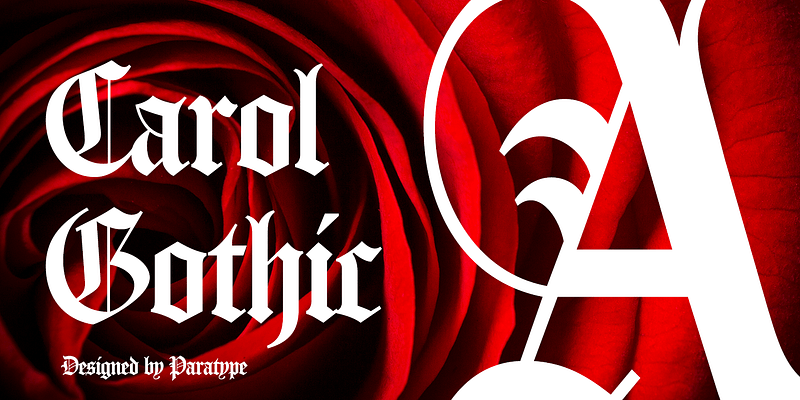
Carol Gothic Font Free Download is a beautifully crafted blackletter typeface that brings a sense of tradition, elegance, and drama to your design projects. With its sharp angles, ornate letterforms, and historical flair, this font is perfect for vintage-inspired branding, certificates, event invitations, religious texts, and fantasy-themed graphics.
The design of Carol Gothic is rooted in old-world calligraphy, yet it maintains a clean and consistent structure that makes it highly readable compared to other gothic fonts. It includes a full set of uppercase and lowercase characters, punctuation, and multilingual support—making it both stylish and practical.